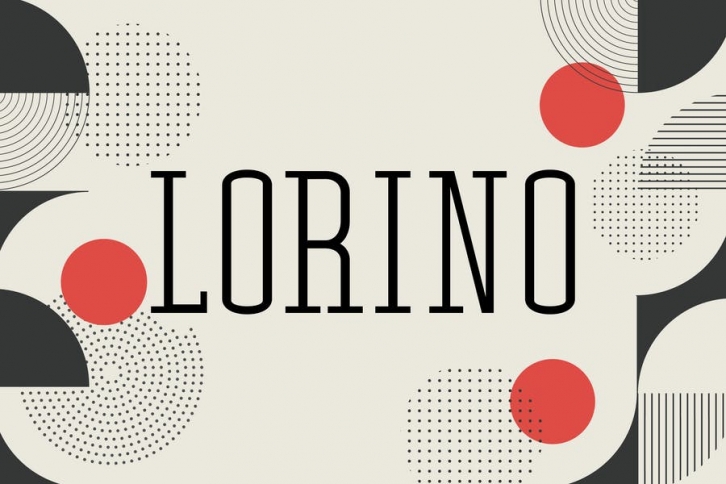
LORINO is a modern thin Serif font with tall characters ! it's perfect for logos, blogs, magazine layouts, invitations, headers, posters, branding, packaging.